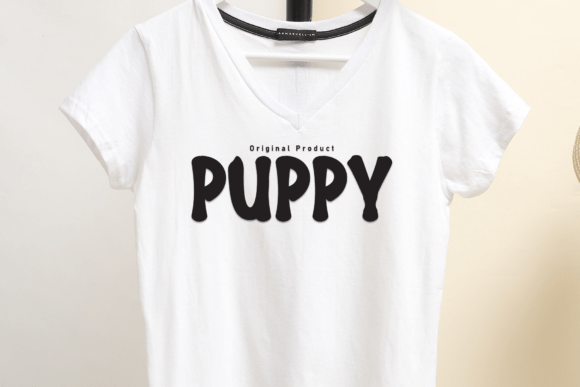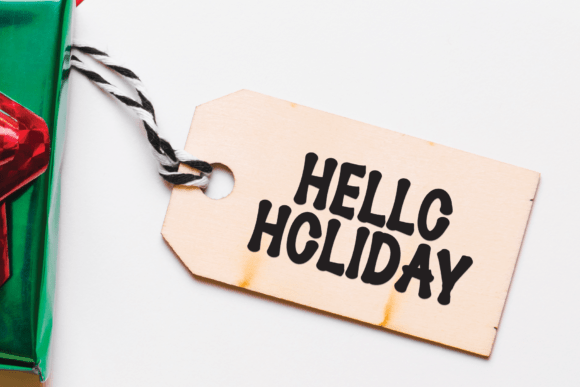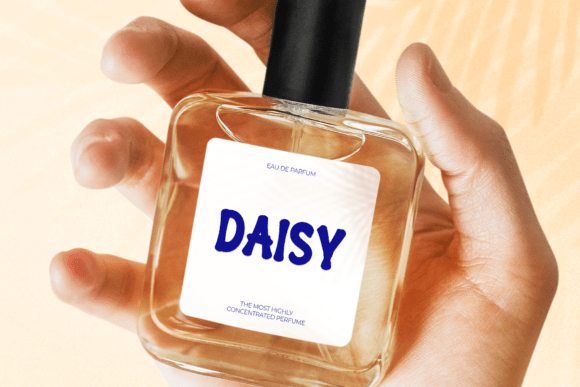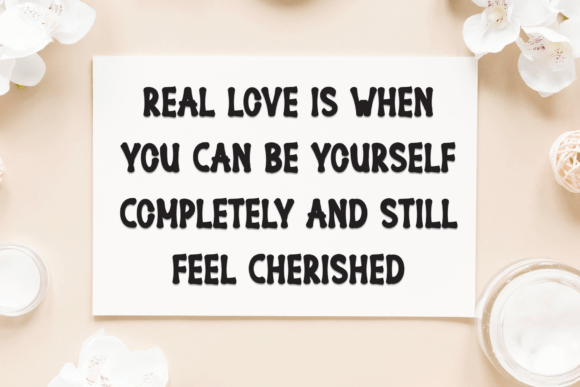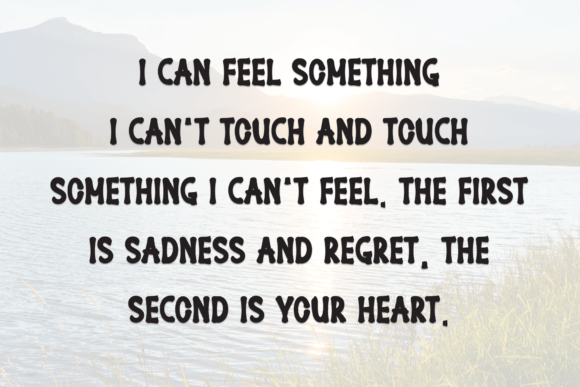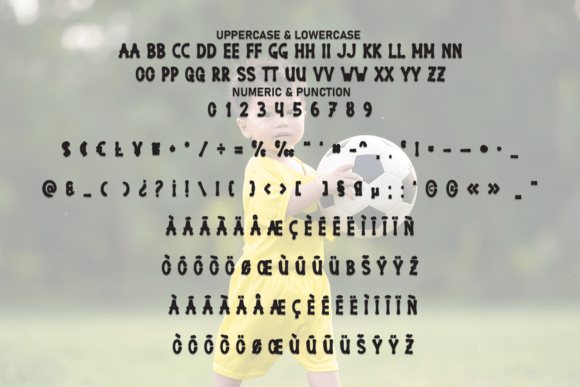
Introduction to Baby Football Font
Immerse yourself in the irresistibly appealing allure of our ‘Sweet and Friendly Handwritten Display Font.
’ Brimming with enchanting character and effervescent charm, this font introduces a dash of whimsy to your designs effortlessly Whether it’s to enhance the beauty of romantic wedding invitations, to augment the delight of heartwarming greeting cards, or to infuse joy into any creative endeavor, this font flawlessly ties it all together.